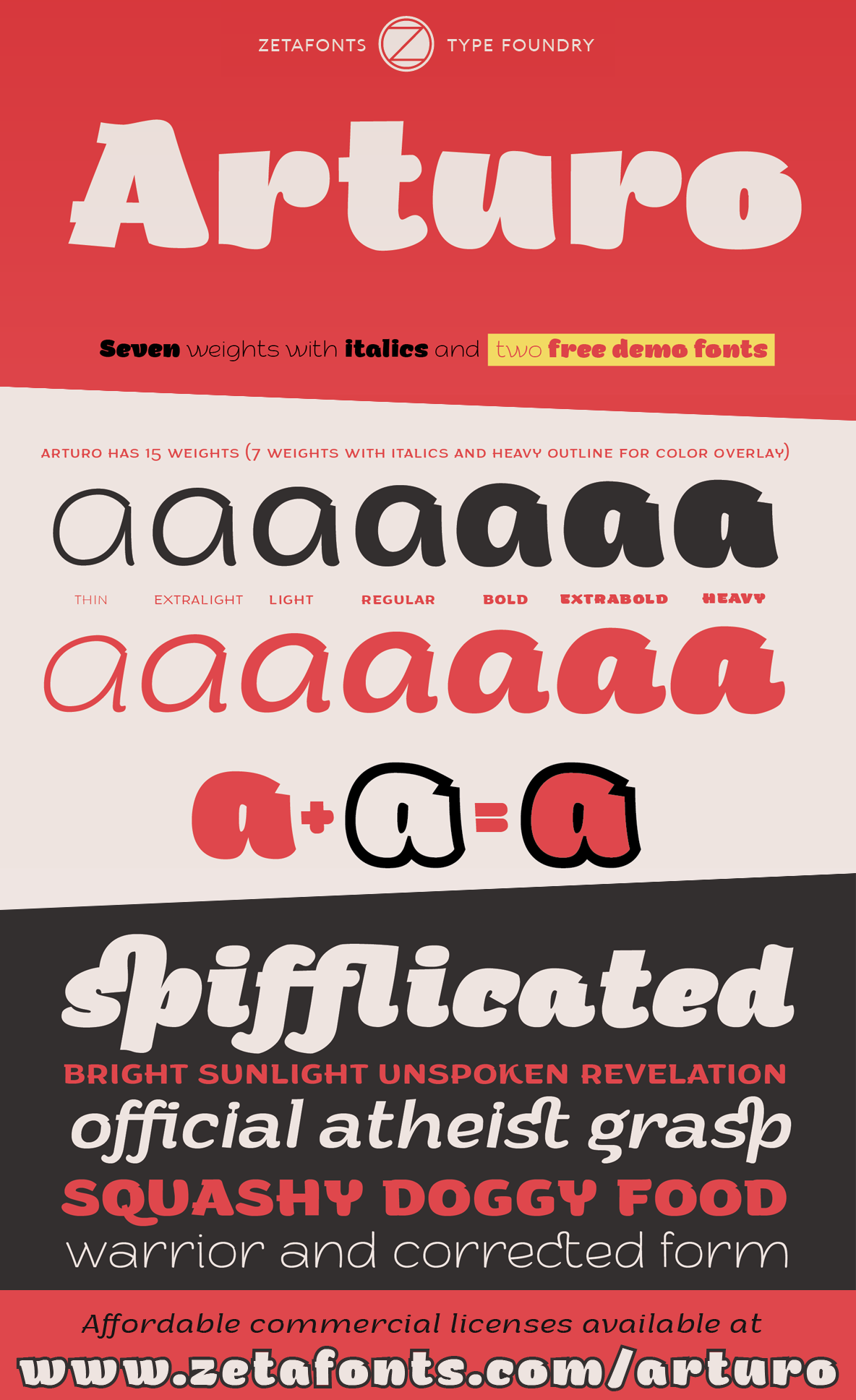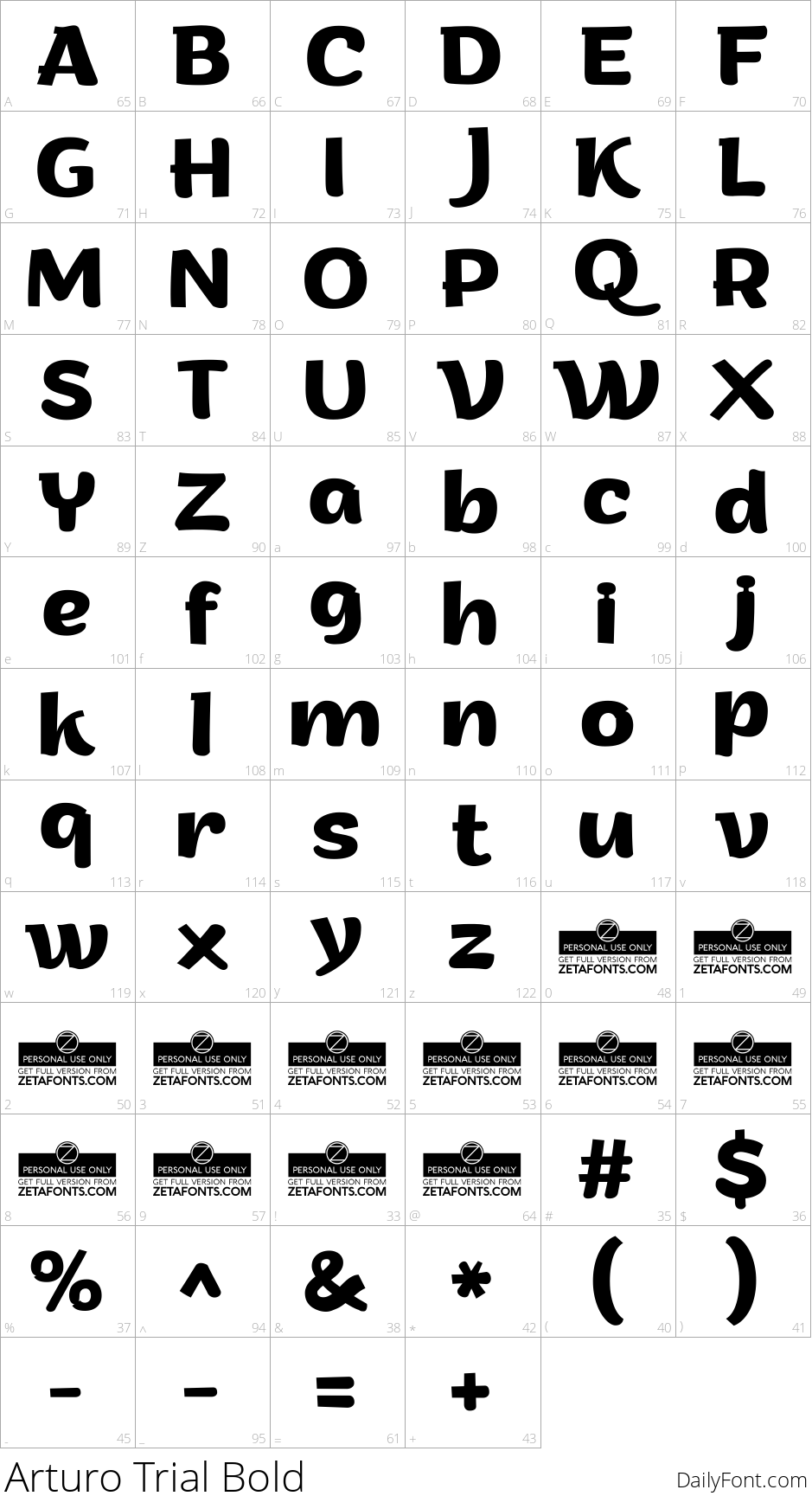
Arturo
Playful bold sans family with seven weights and matching italics
Looking for a playful yet versatile sans serif font with advanced features? Look no further than Arturo! This text family offers seven weights, each accompanied by a matching italic, making it perfect for a wide range of design applications.
Arturo's unique blend of fun and sophistication is matched only by its impressive feature set. With stylistic alternates, small caps, discretionary ligatures, and more, you'll have endless options to fine-tune your typography and make it pop. Whether you're designing for display or creating a custom logo, Arturo's got you covered.
But that's not all - this font family also includes a range of specialized numerals, including ordinals, superior and inferior numerals, tabular, lining, and oldstyle figures, as well as OpenType-generated fractions. And with its outline version, you can create stunning multilayer color fonts or use it on its own for a sleek, modern look.